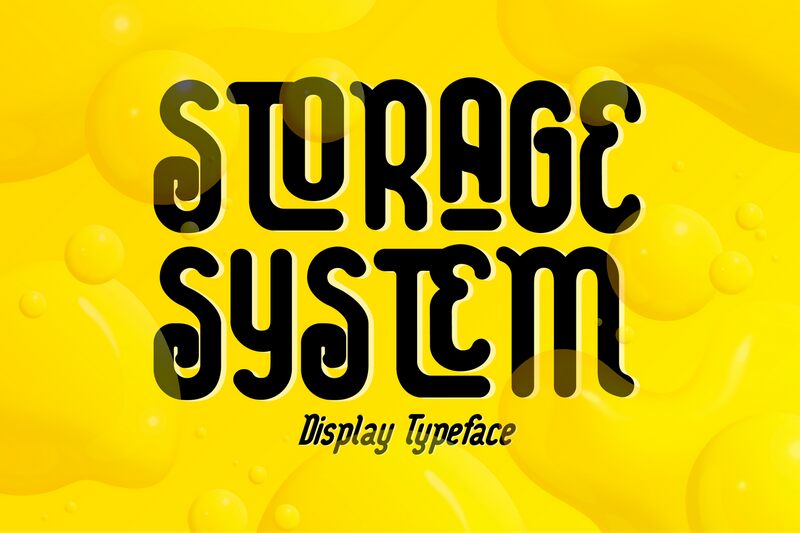
Storage System free font family by 177Studio consists of 2 font styles. With a retro-inspired style combined with a modern twist, this fancy classic serif font is one to keep on your list for your next design projects. Inspired by storage buildings, its fancy character shapes include unique visual elements that make its optical appearance eye-catching and interesting.
Explore the potential of this geometric influence font in logotypes, branding, packaging, apparel designs, signage, posters, and brochures. It also works beautifully in digital projects like websites, apps, and social media content.